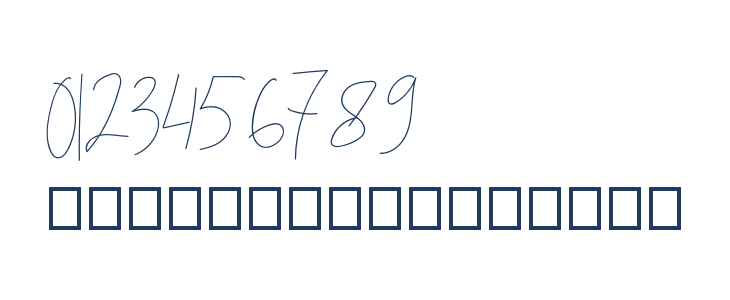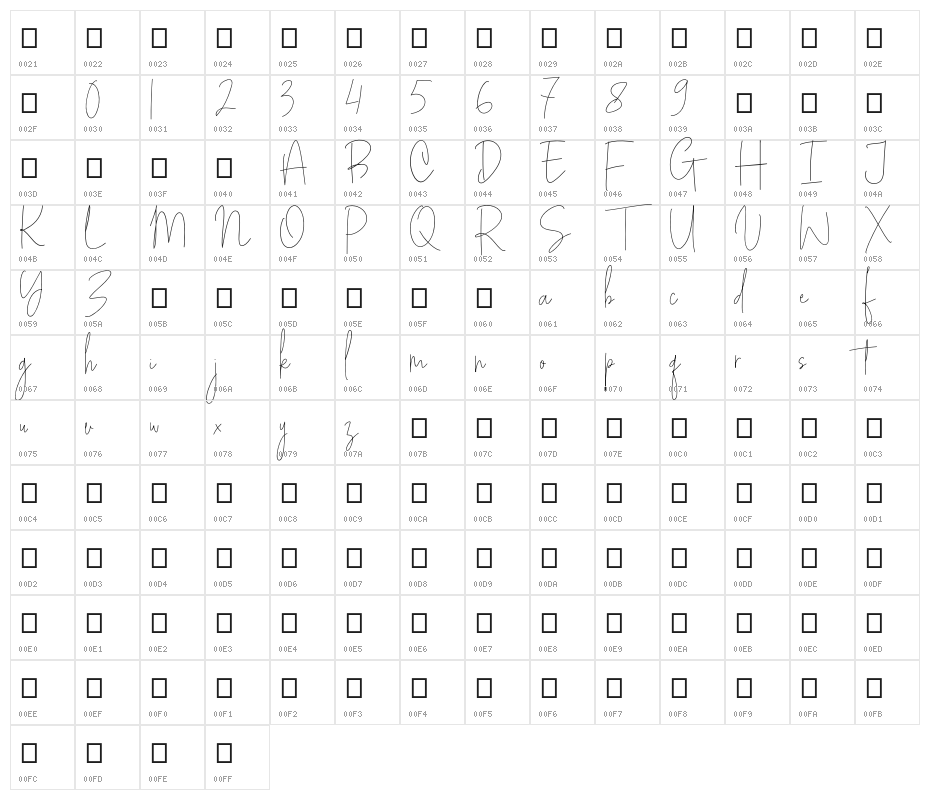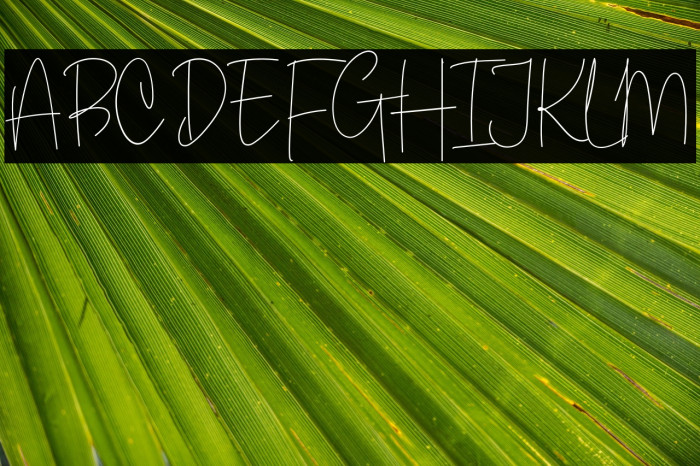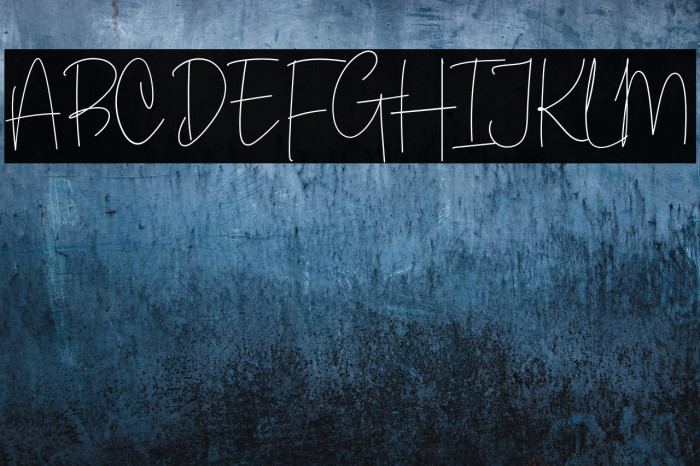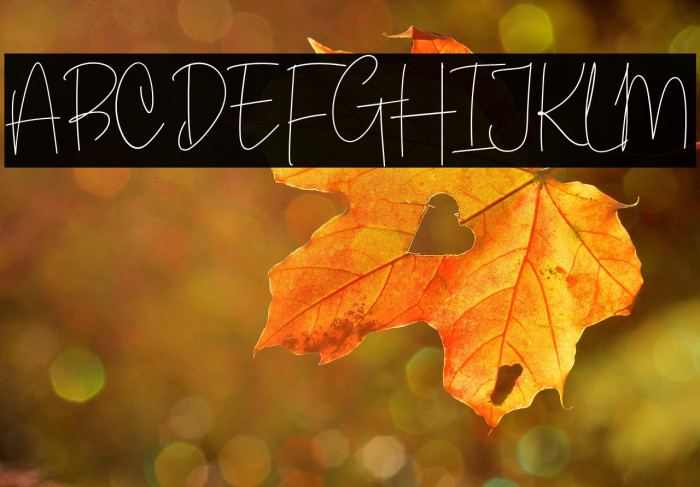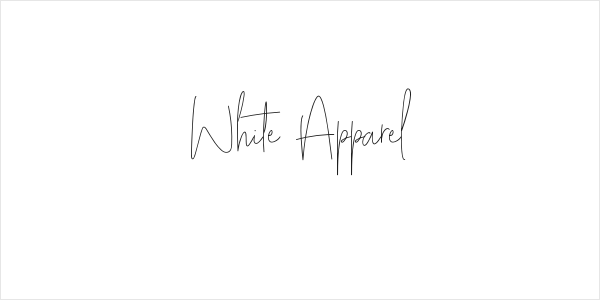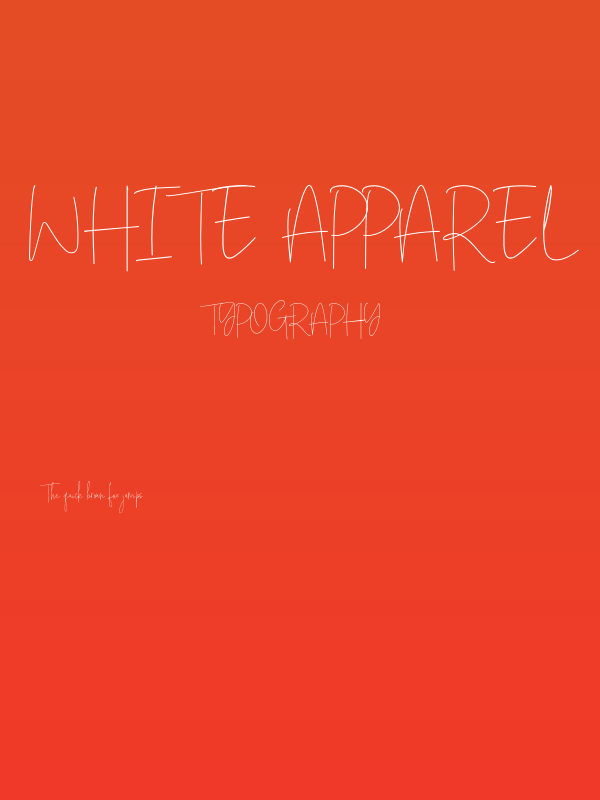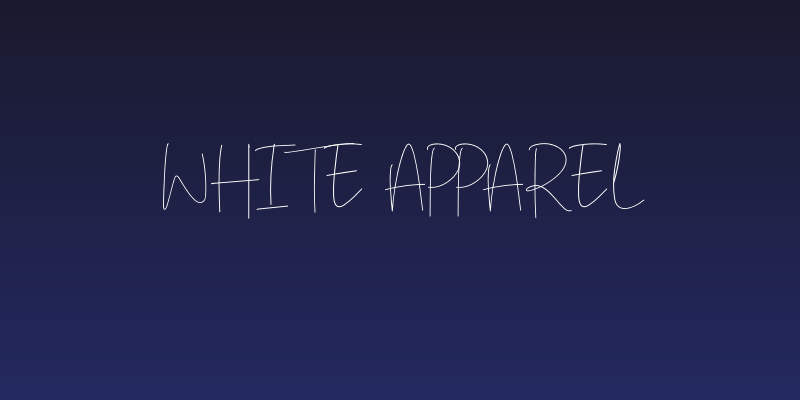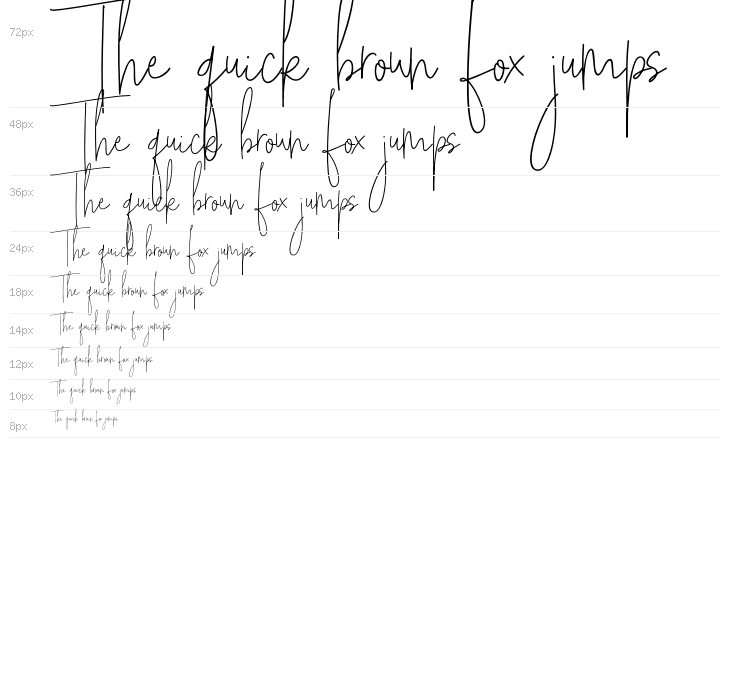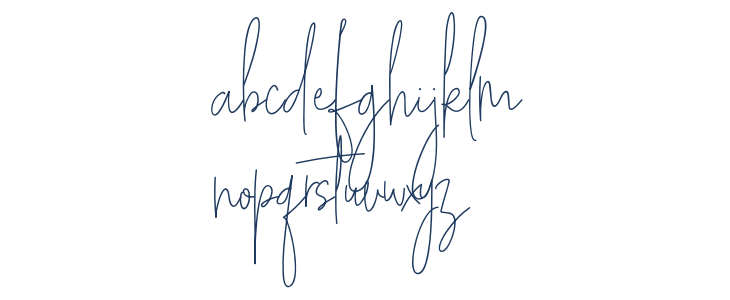
White Apparel Font
White Apparel Description
This font features a handwritten style with a casual and informal appearance. The letters are thin and elongated, giving it a delicate and airy feel. The uppercase letters are slightly taller than the lowercase, maintaining a consistent flow throughout. The numbers follow the same slender and tall design, ensuring uniformity across all characters. The special characters are not visible, suggesting a focus on the alphabet and numerals. This font's overall aesthetic is modern and artistic, making it suitable for creative and personal projects.
| Proposed Projects | Ideal for personal branding, creative invitations, artistic posters, and social media graphics. |